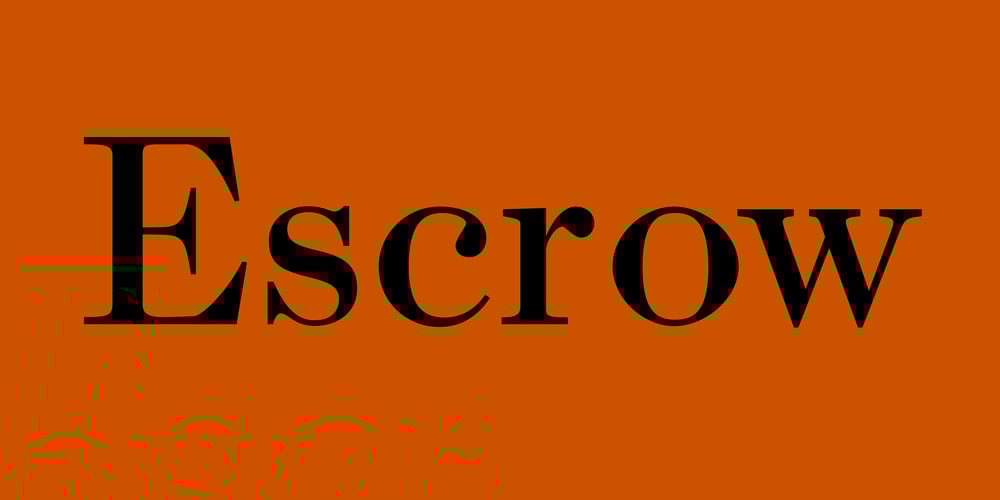
Escrow Font Family was designed by David Berlow and published by Font Bureau. Escrow contains 64 styles and family package options. The Wall Street Journal commissioned Escrow. Cyrus Highsmith designed forty-four styles in this new Scotch series, which sets the tone of the front page of the Journal, envy of the newspaper industry. Escrow Banner, drawn by Richard Lipton based on Cyrus Highsmith’s design, is aimed at the very largest headlines or titles.